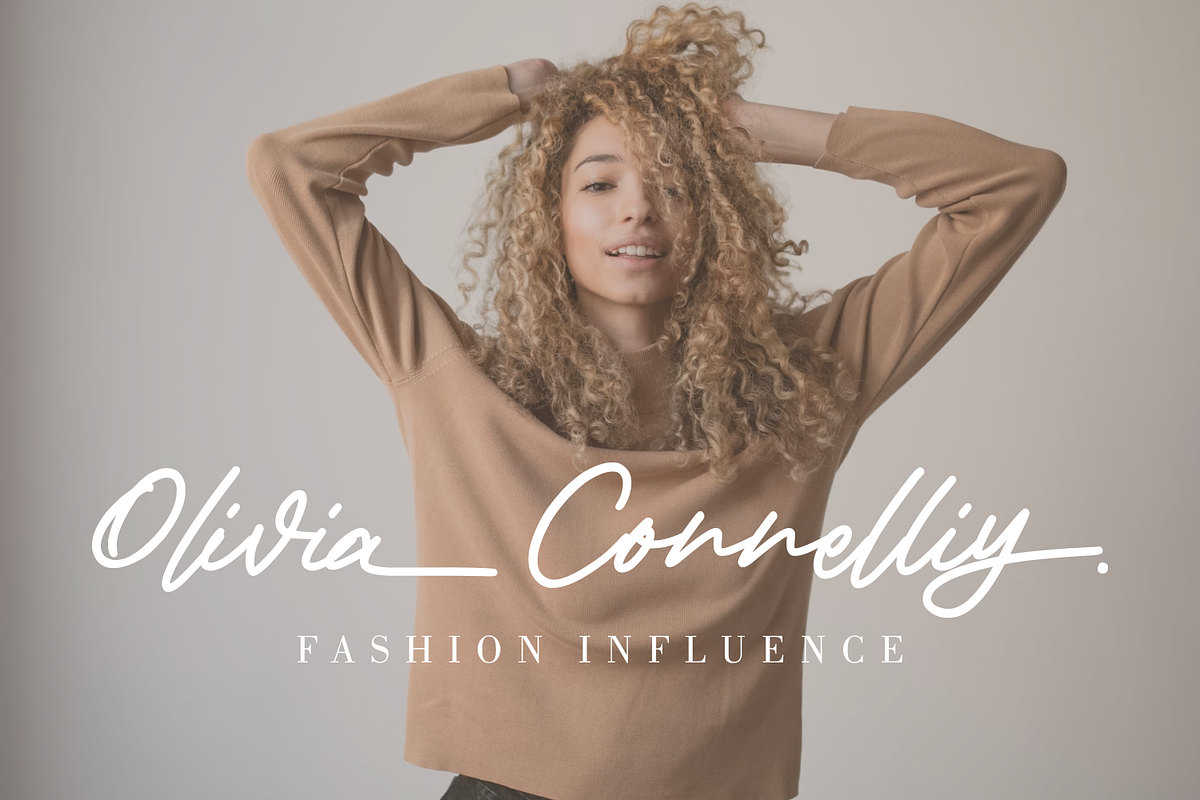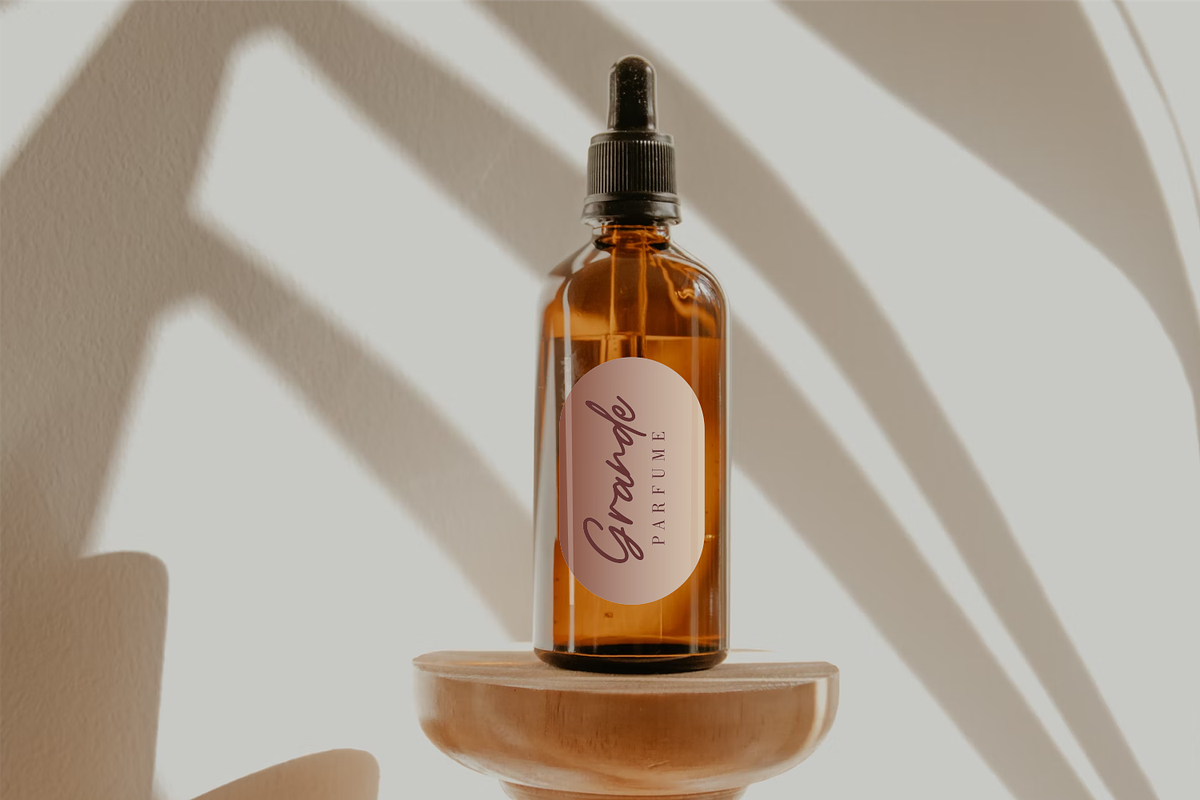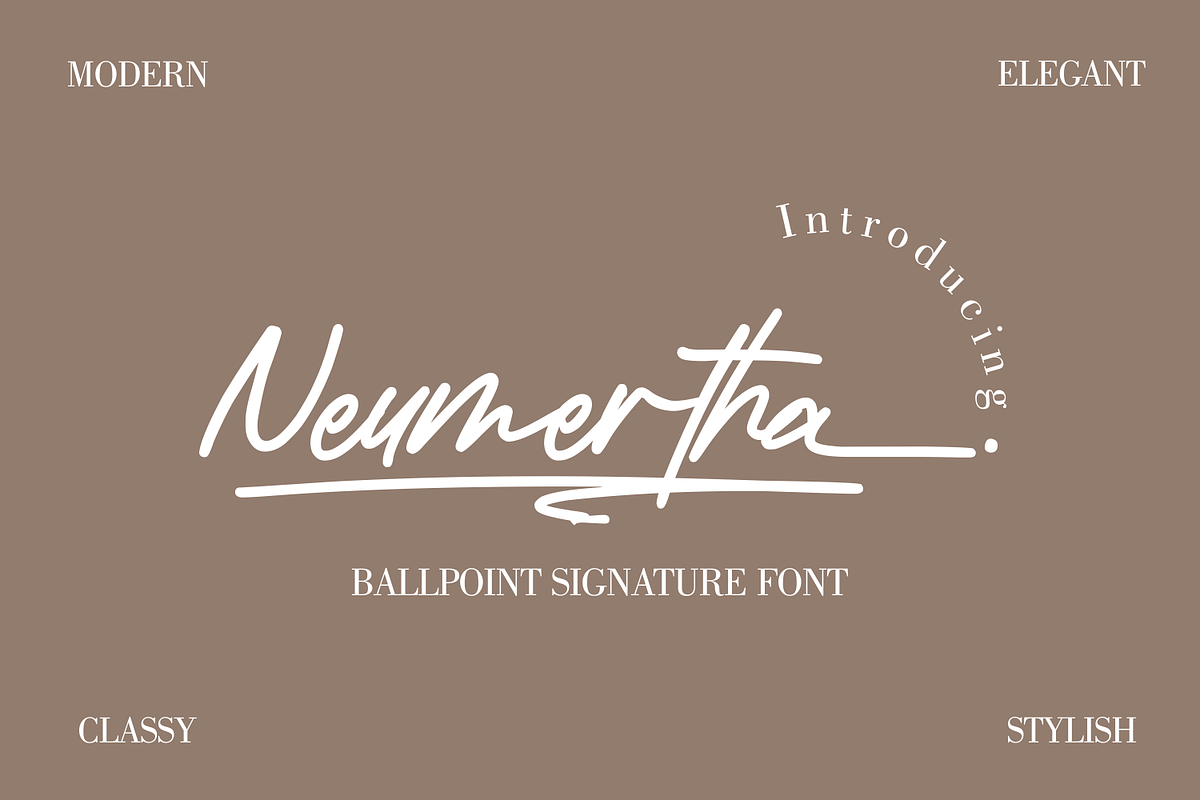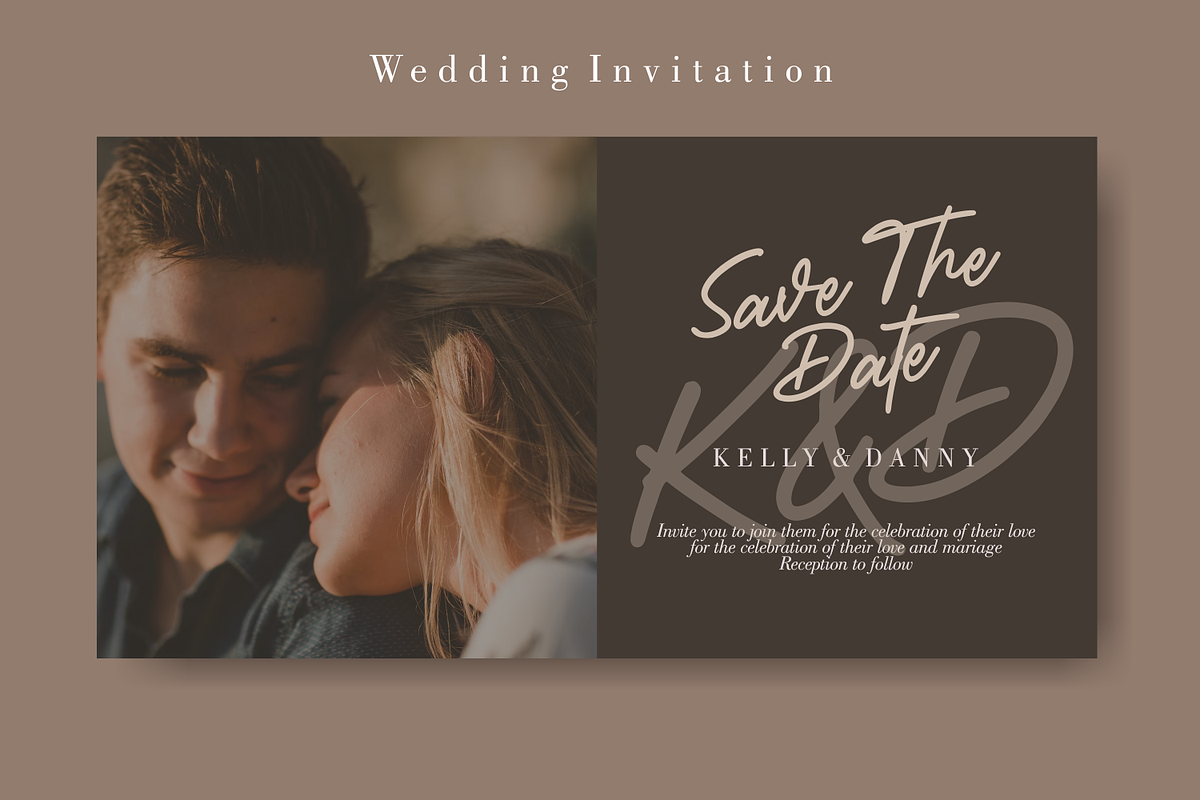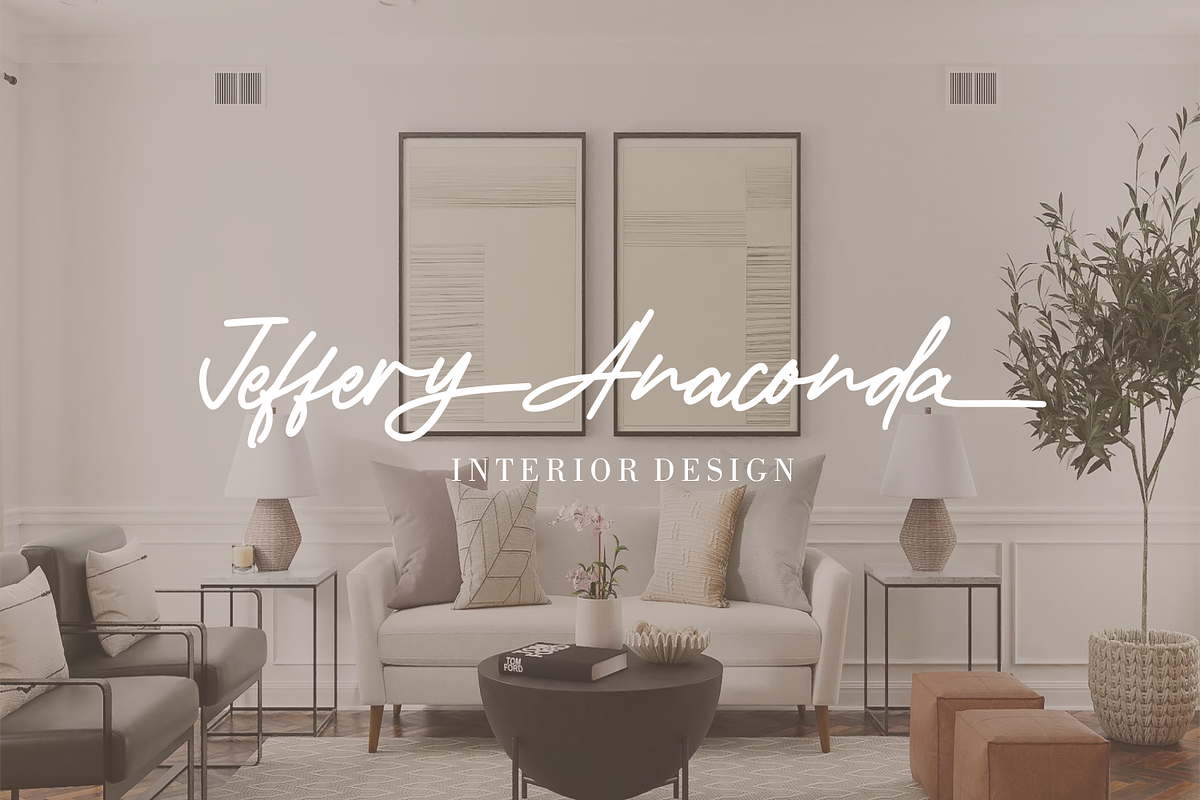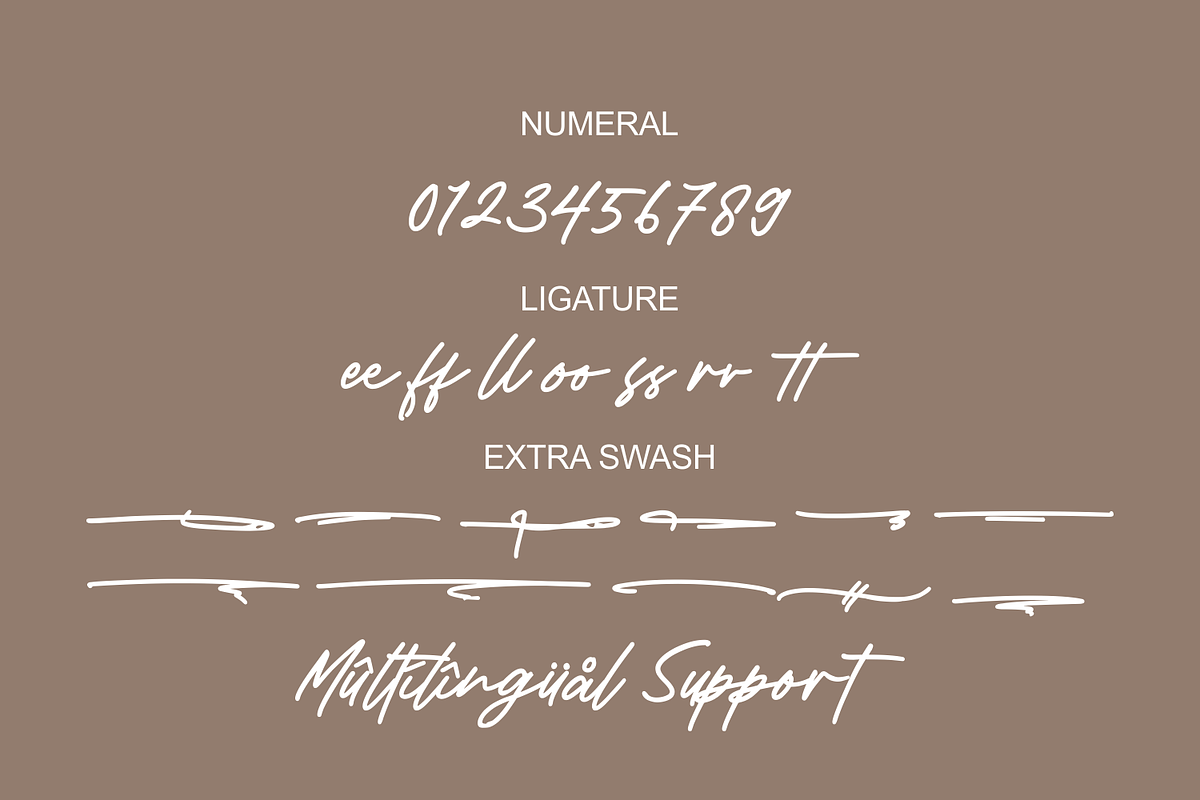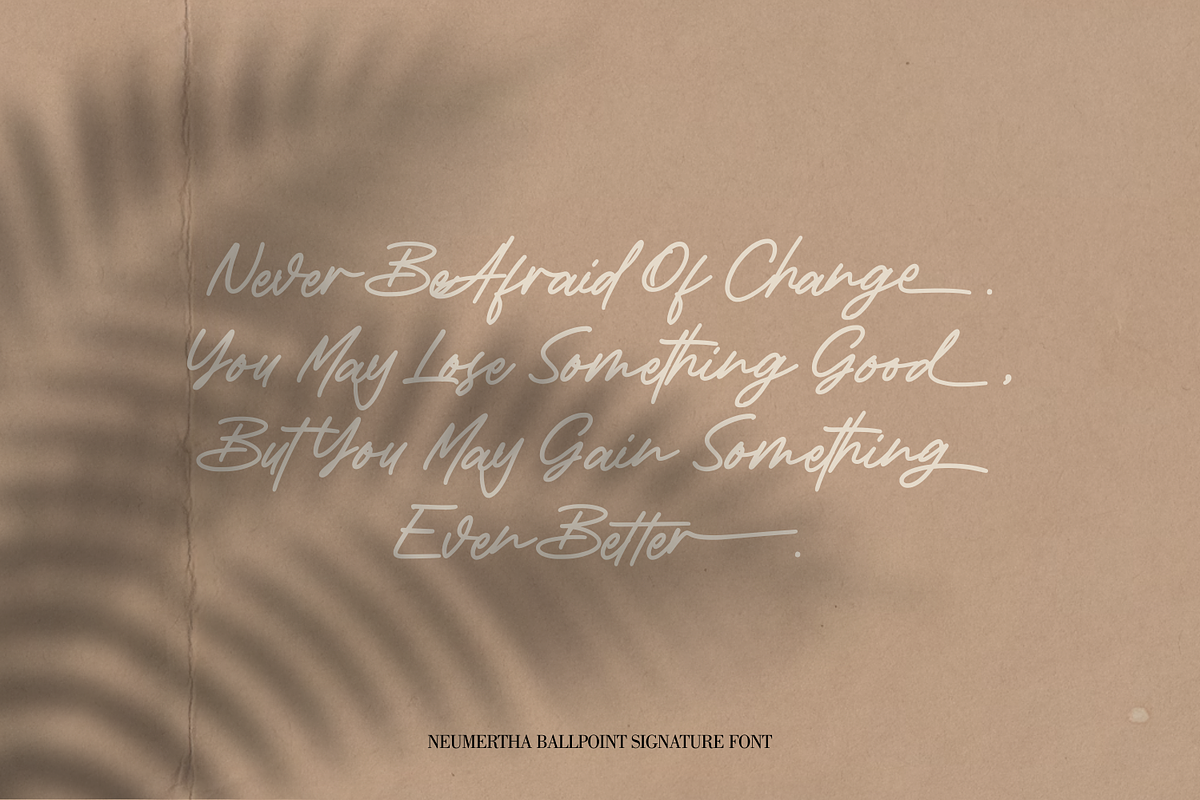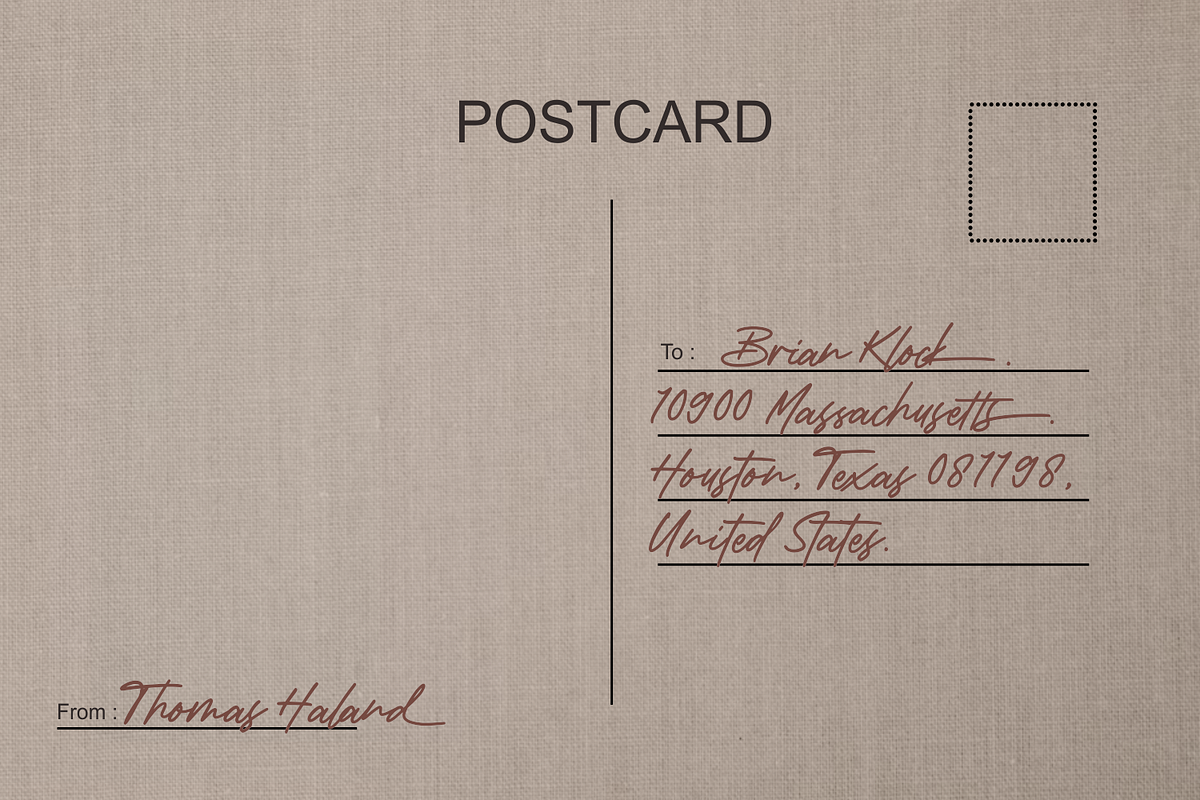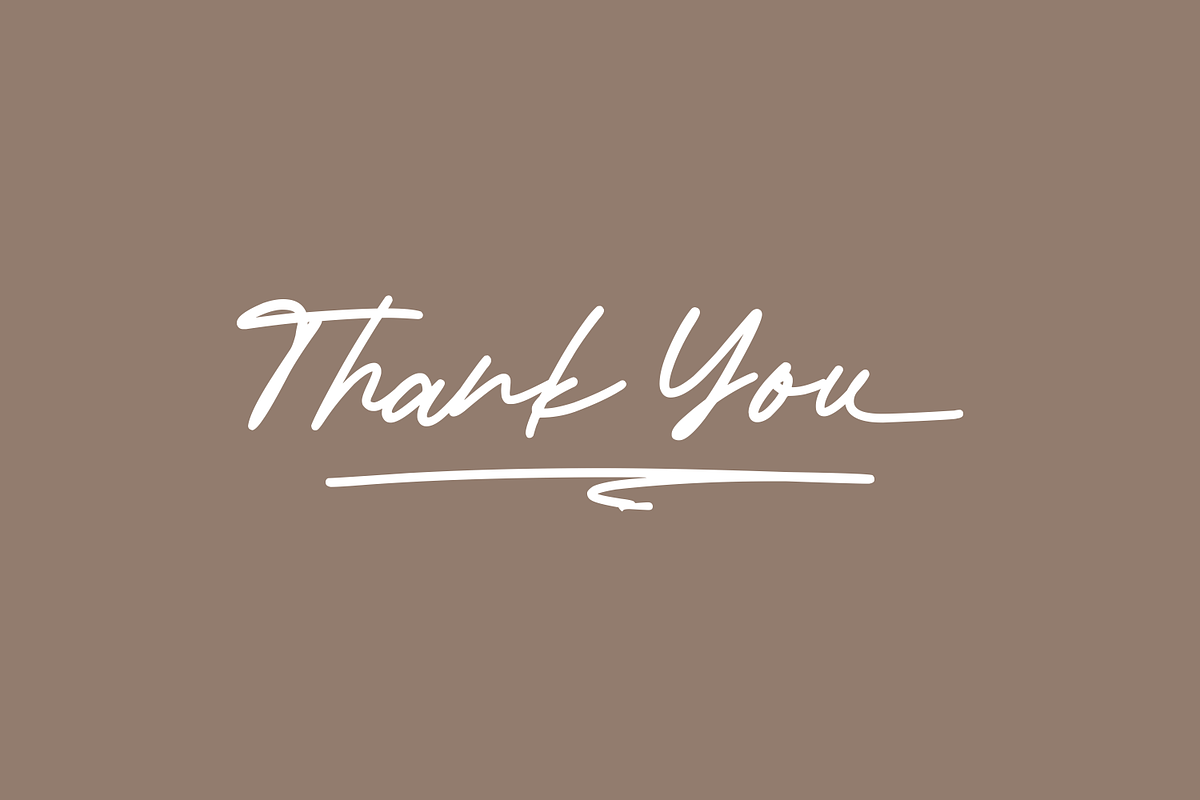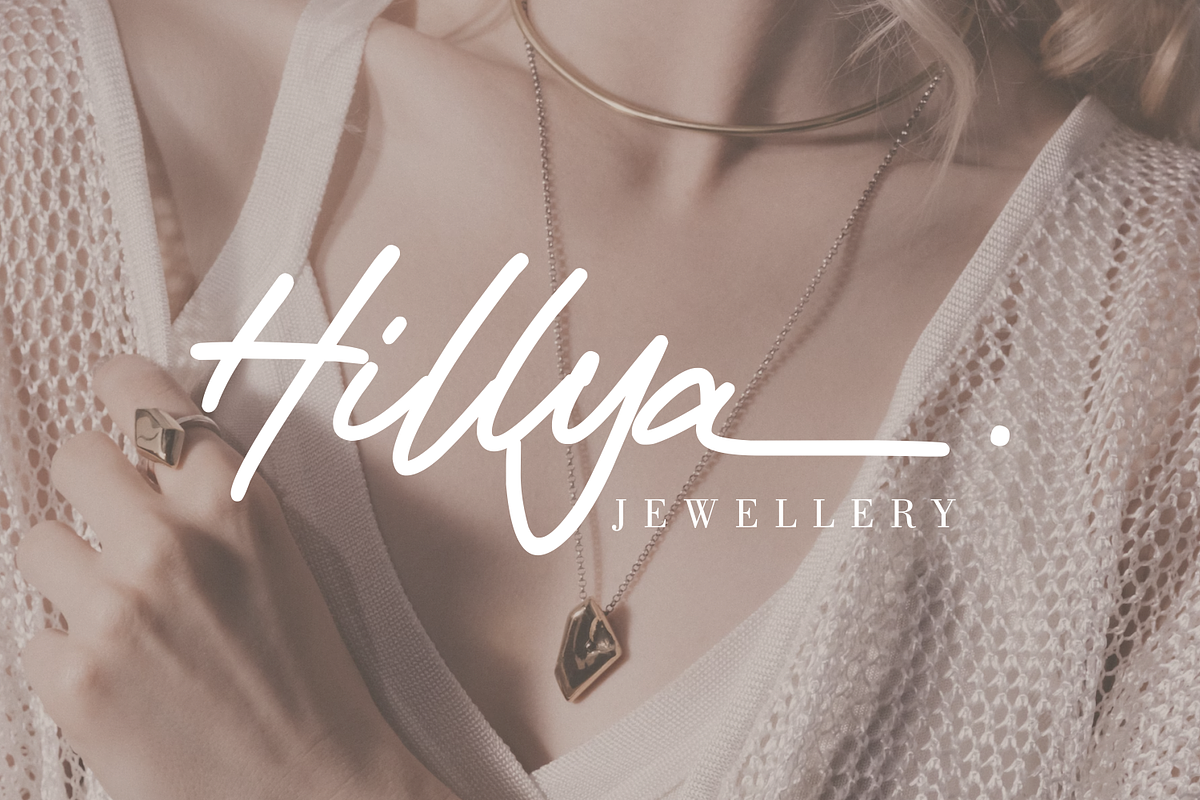
Neumertha is an imperfect ballpoint script designed to look as natural as a real handwritten note. Make sure you turn on the ligatures to see the magic as you type and unique extra swash. Great for handwritten quotes, notes, labels, wedding invitations, jewelry, or any project that requires an authentic handwritten touch. Included :
- Symbol
- Ending lowercase